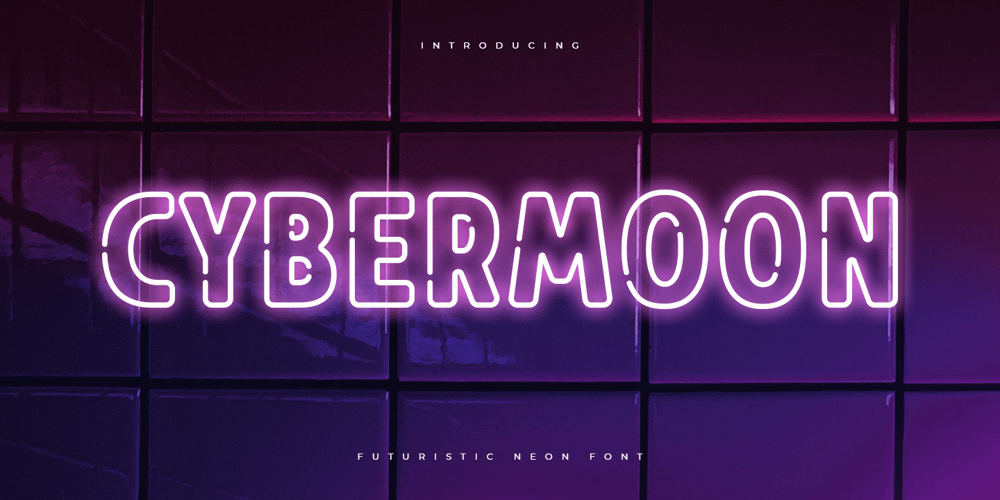
Cybermoon Font Family was designed by Zamroni Hamzah and published by Sensatype Studio. Cybermoon contains 1 styles and family package options. Cybermoon is Futuristic Neon Font with Modern shape make your design look unique and stylishA new Display Font that we created special for Headline, Title and more stand out typography needs, with extra ligature that will add your variations. Font ready with: Any options to get creative variations Preview as a inspirations that you can do with this font Ready with Uppercase & Lowercase characters Wish you enjoy our font. ๐